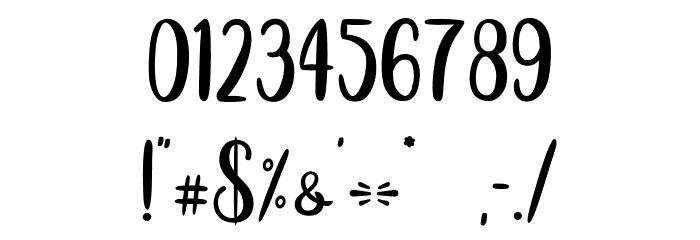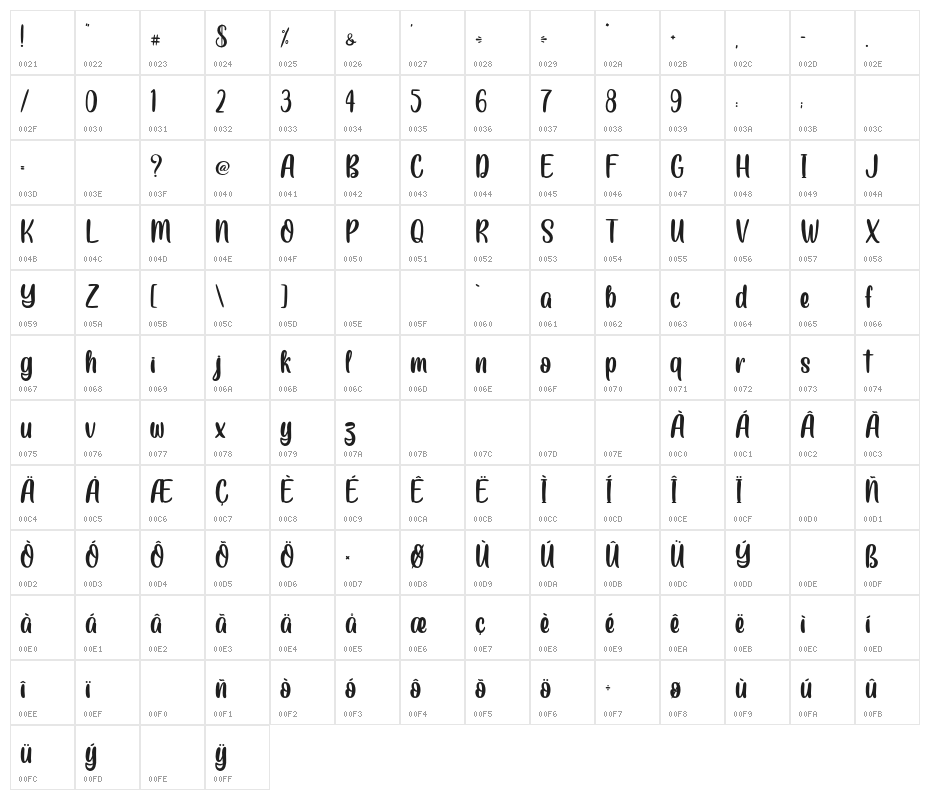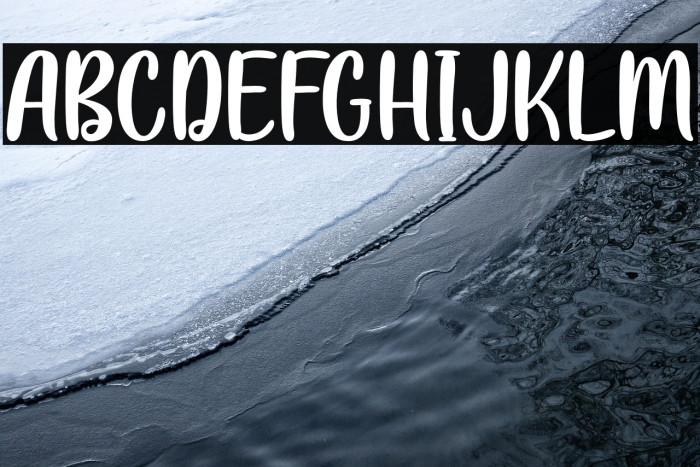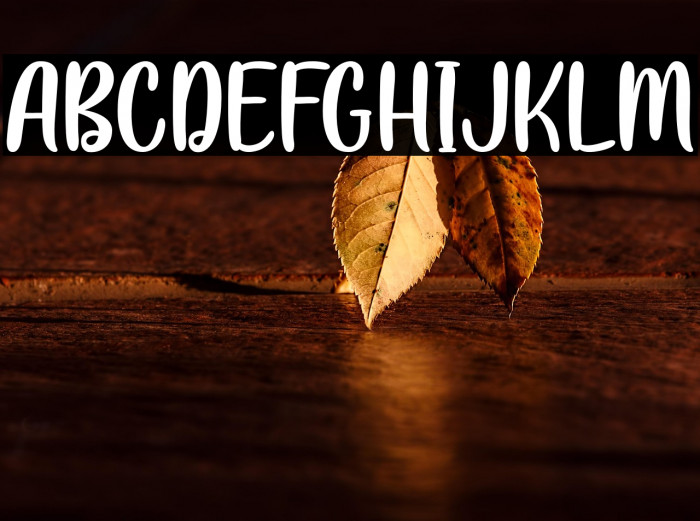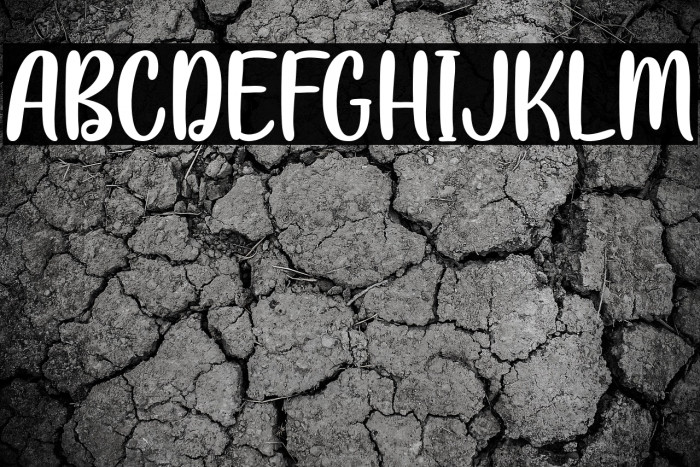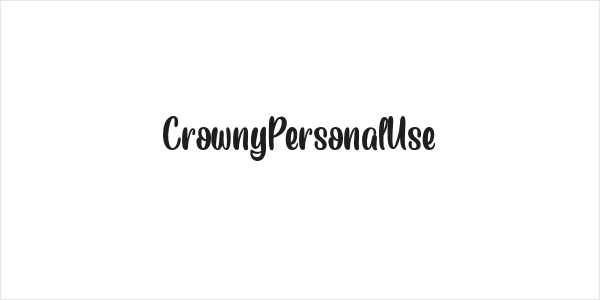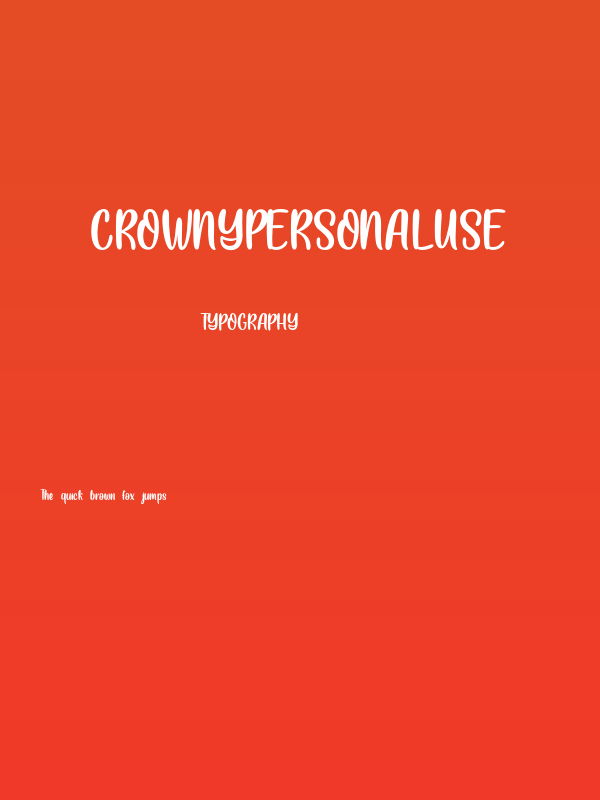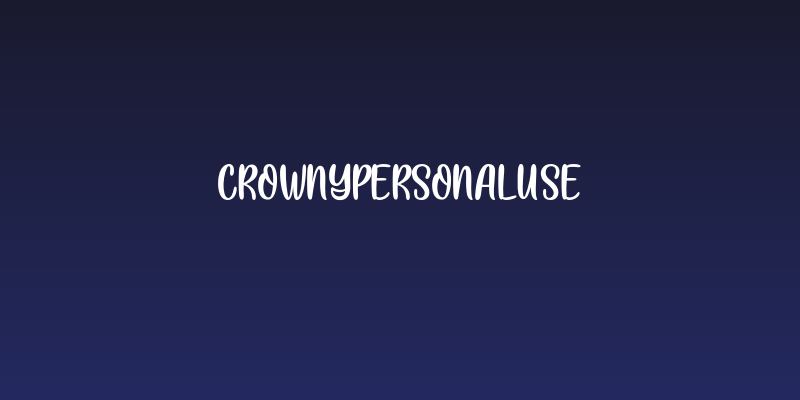
CrownyPersonalUse Font
CrownyPersonalUse Description
This playful and energetic font features bold, rounded strokes with a handwritten flair. The characters are slightly condensed, giving a compact and lively appearance. The uppercase letters are tall and assertive, while the lowercase letters maintain a consistent flow with a touch of whimsy. Numbers and special characters are designed to complement the overall style, making it versatile for various creative projects. The font's smooth curves and balanced proportions make it suitable for eye-catching designs that require a personal touch.
| Overall Style | Playful, Energetic |
| Proposed Projects | Ideal for greeting cards, invitations, playful branding, children's books, and social media graphics. |